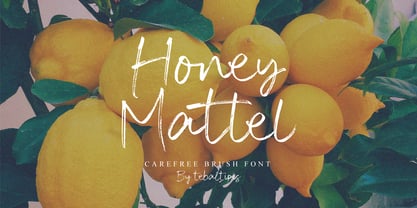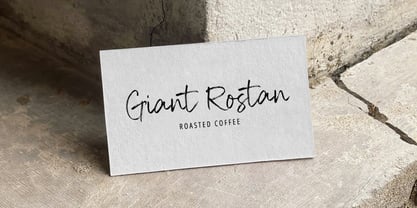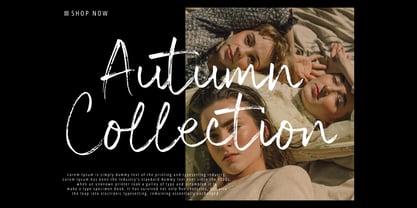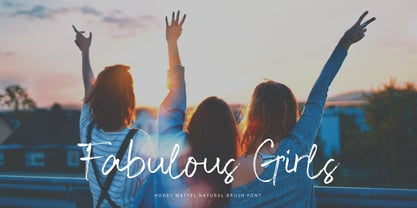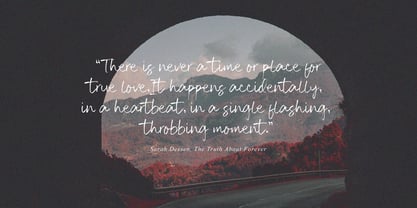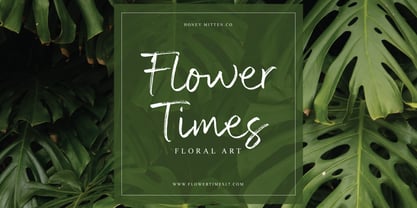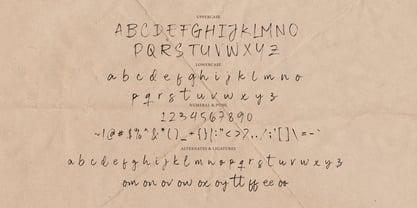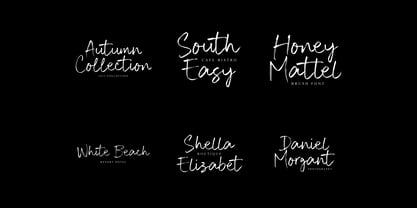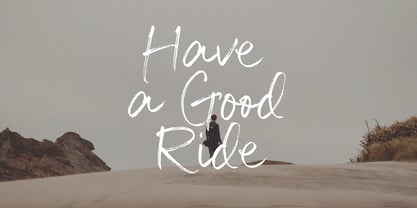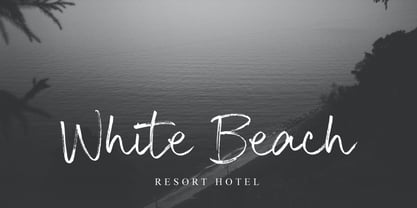
Honey Mattel Brush
by Tebaltipis Studio
The Honey Mattel Brush Font Family was designed by Dzulka Elfira and published by Tebaltipis Studio. Honey Mattel Brush contains 1 styles. More about this family
Honey Mattel – Carefree Brush Font Honey Mattel is a charming and expressive brush font designed to bring a sense of warmth and spontaneity to your creative projects. With its natural brush strokes and hand-drawn feel, this font is perfect for branding, packaging, social media graphics, and handwritten quotes. Created by Tebaltipis, Honey Mattel blends casual elegance with a playful attitude, making it ideal for designs that need a personal and authentic touch. Rough/Brushed Texture: A “dirty” and textural effect, as if ink or paint has blended into the surface, enhancing the organic and warm feel. Visual Affirmation: The capital letters have uneven thickness and tapered edges, providing an interesting visual dynamic.
Designers: Dzulka Elfira
Foundry: Tebaltipis Studio